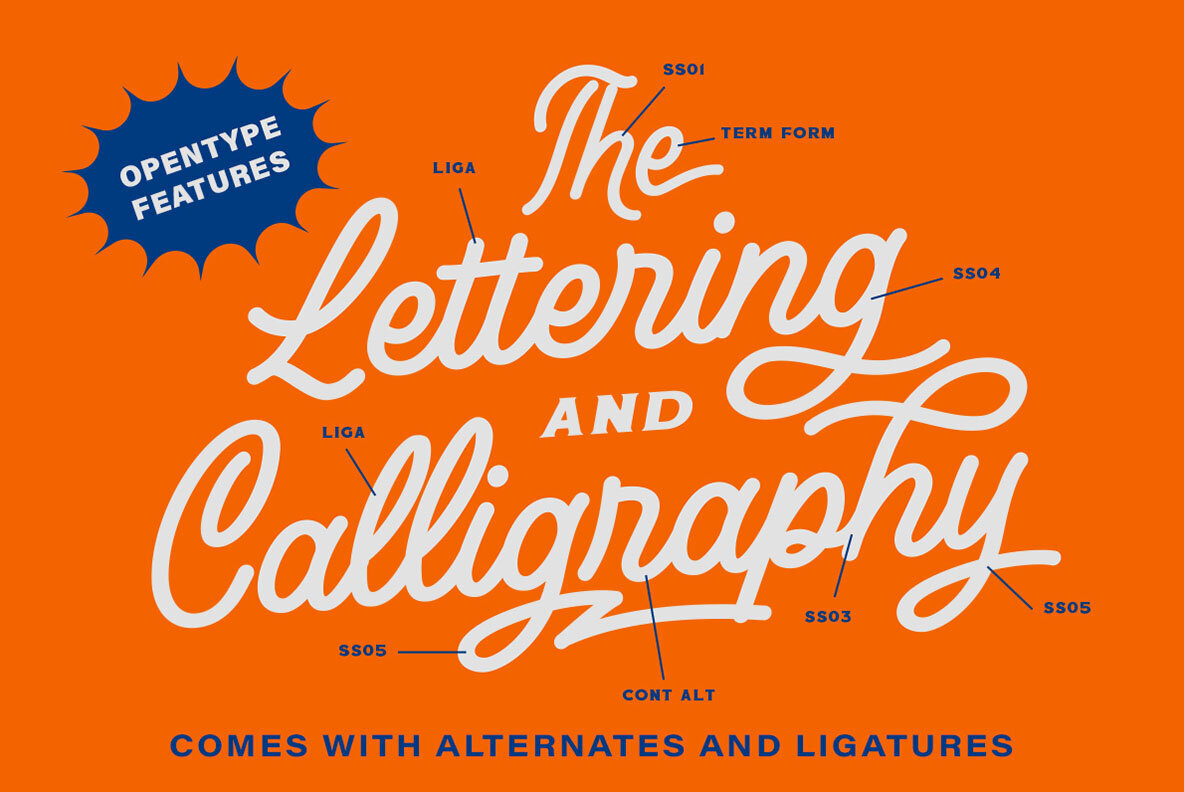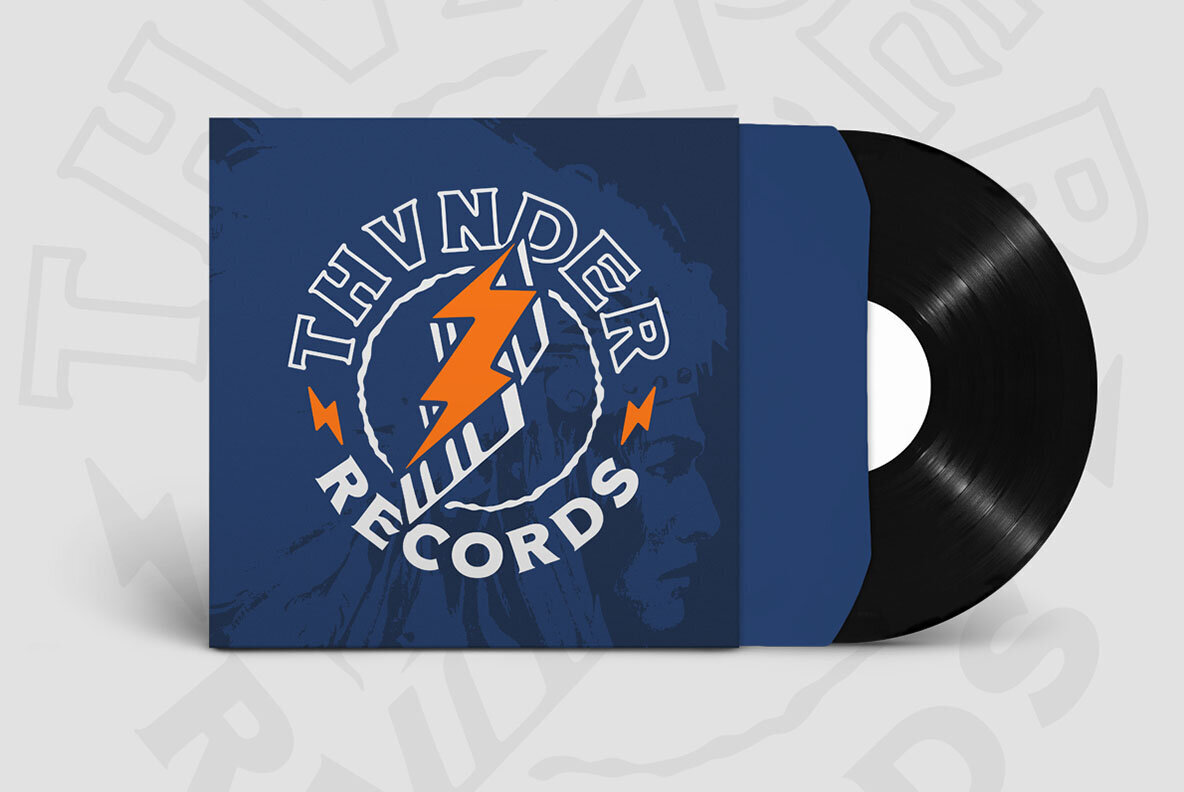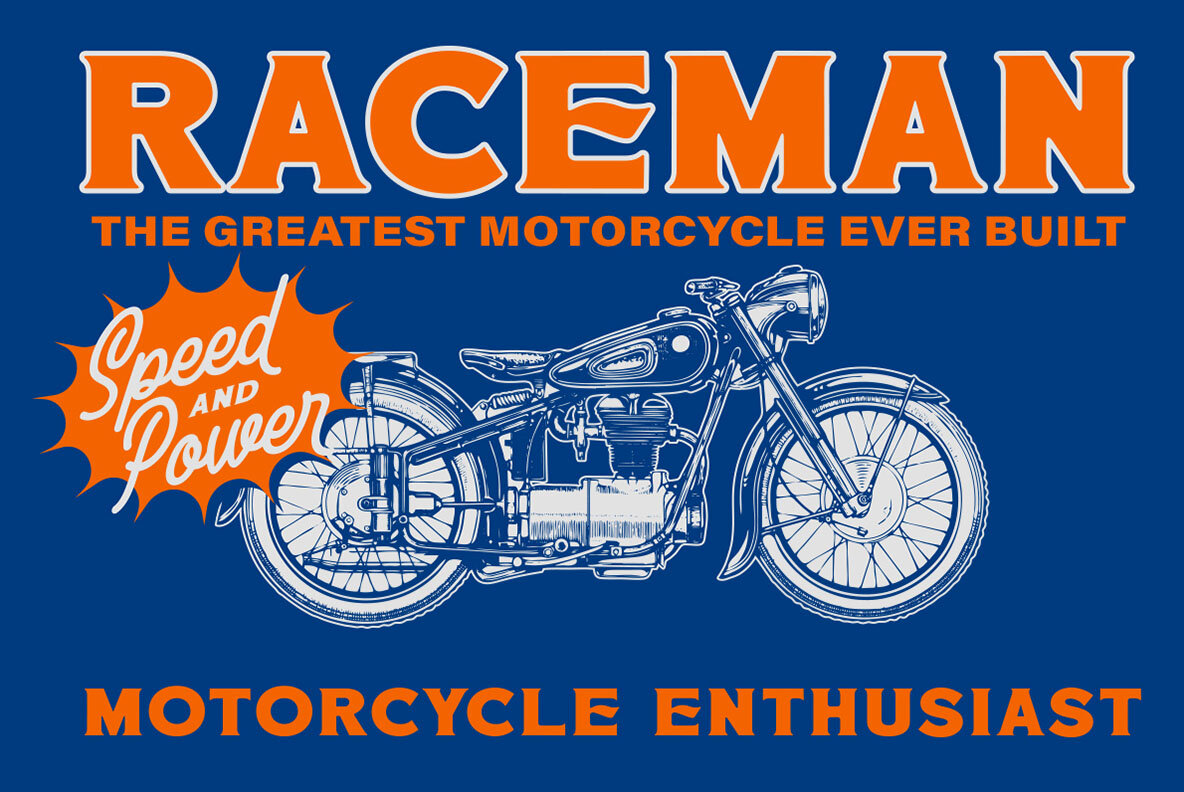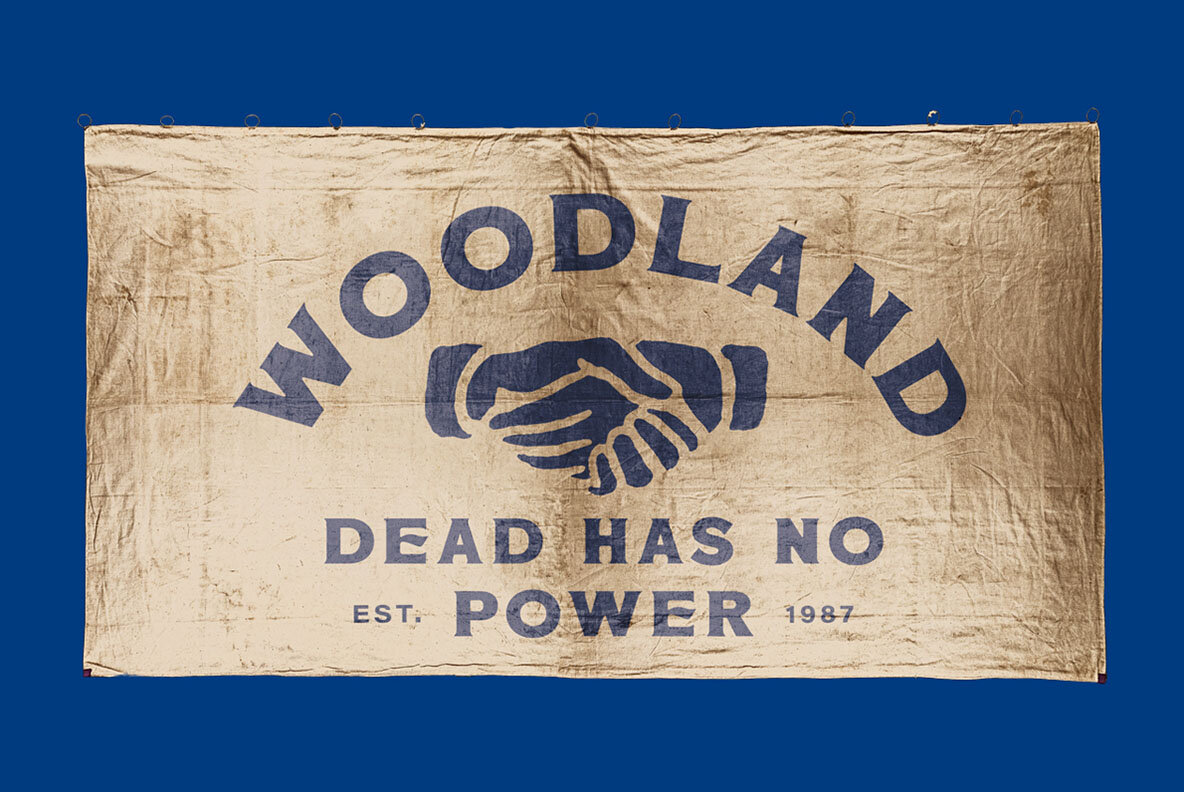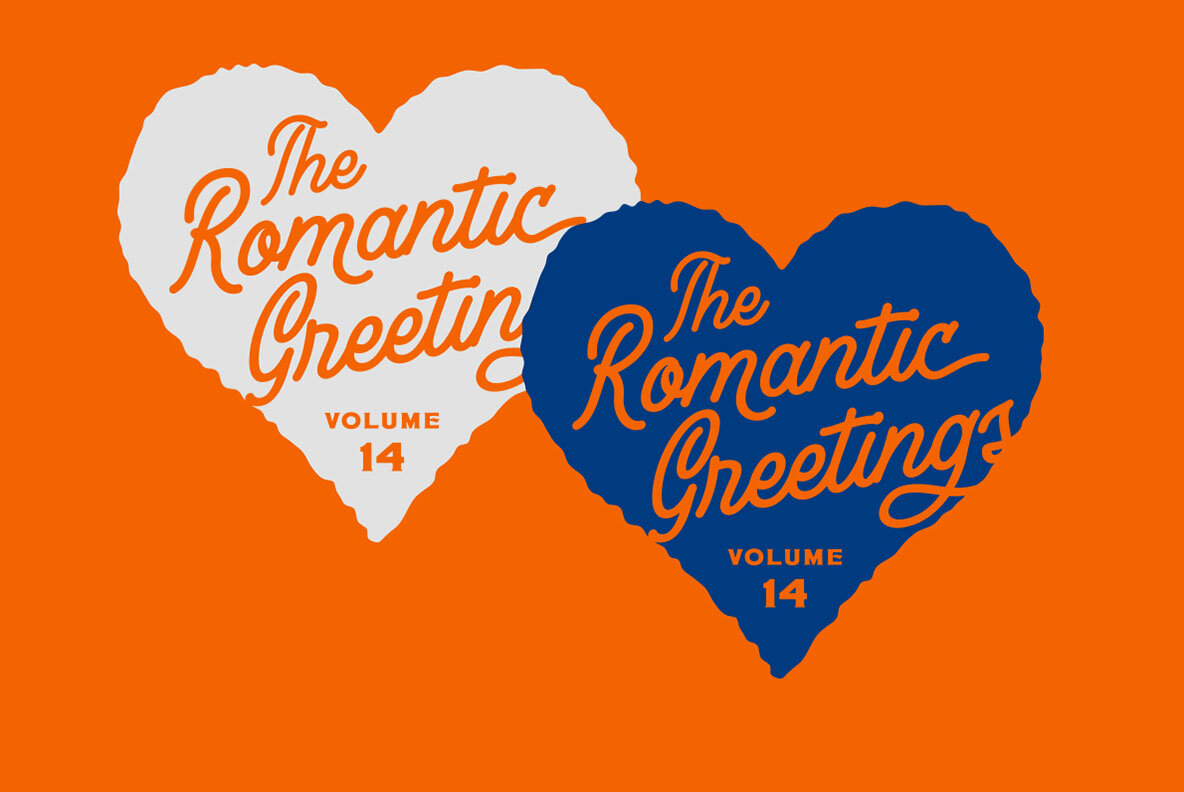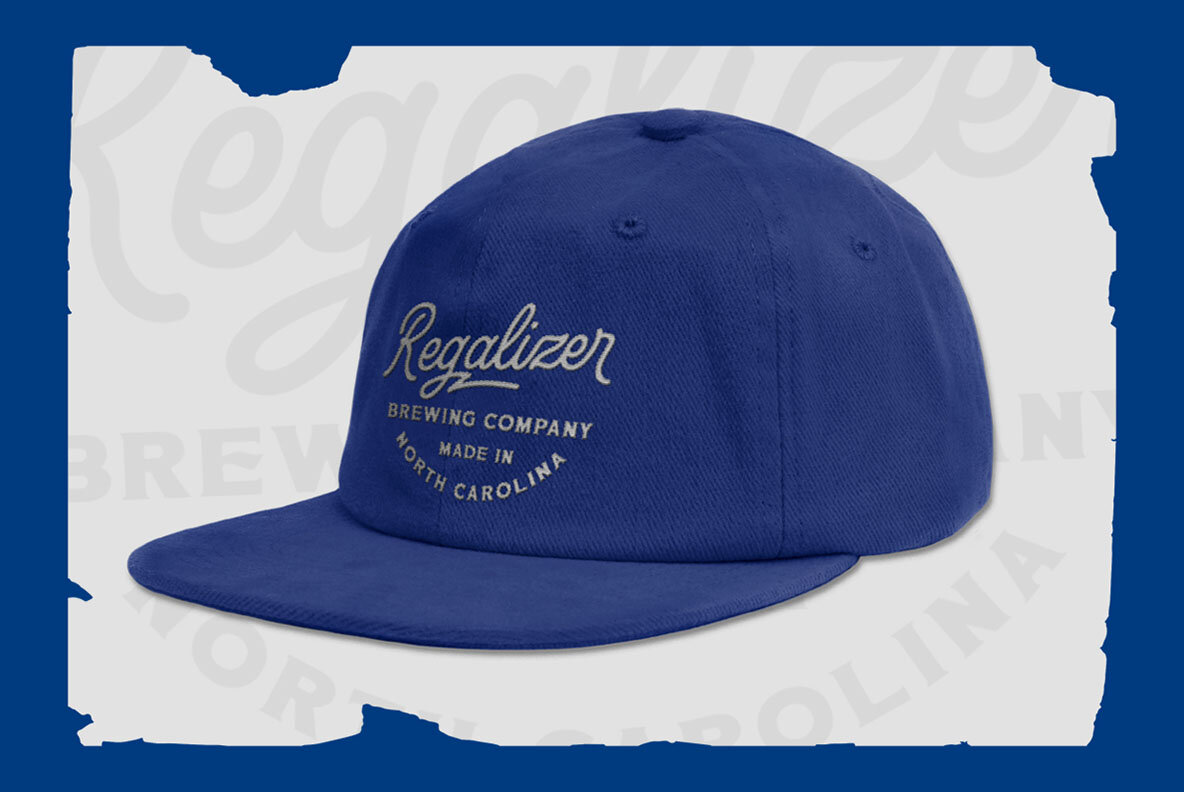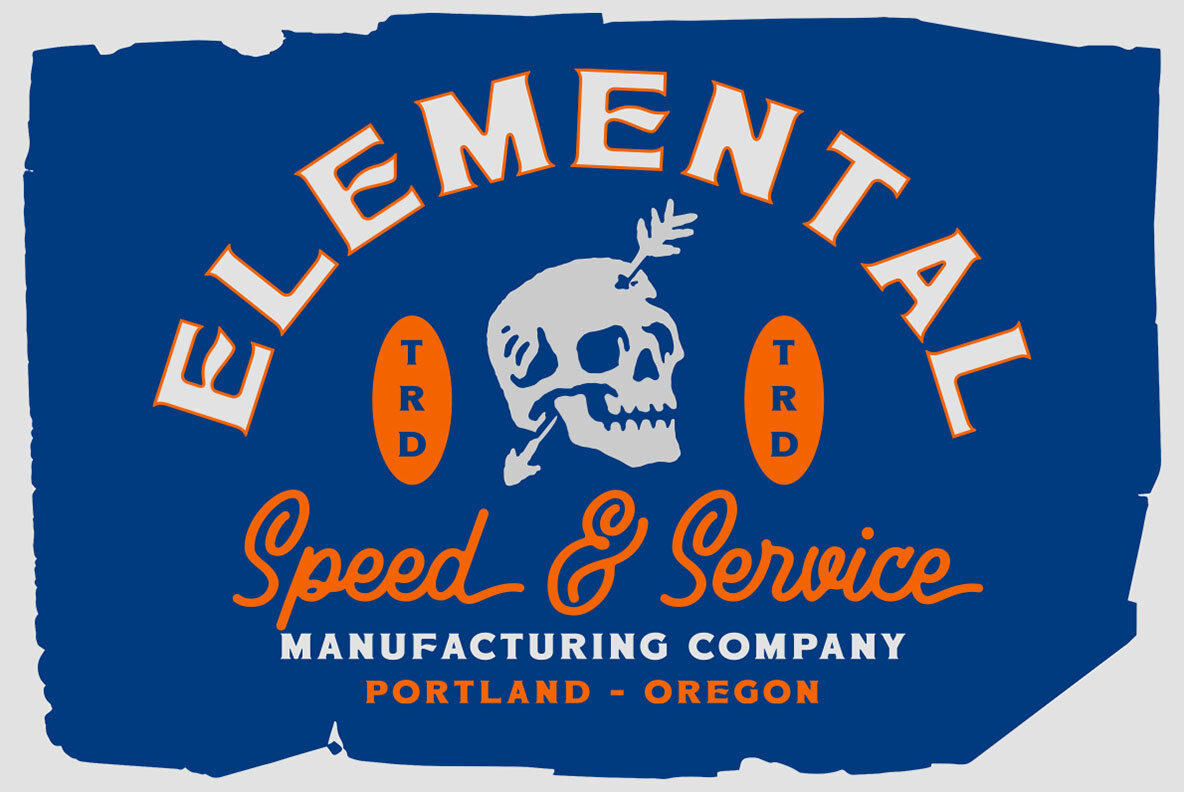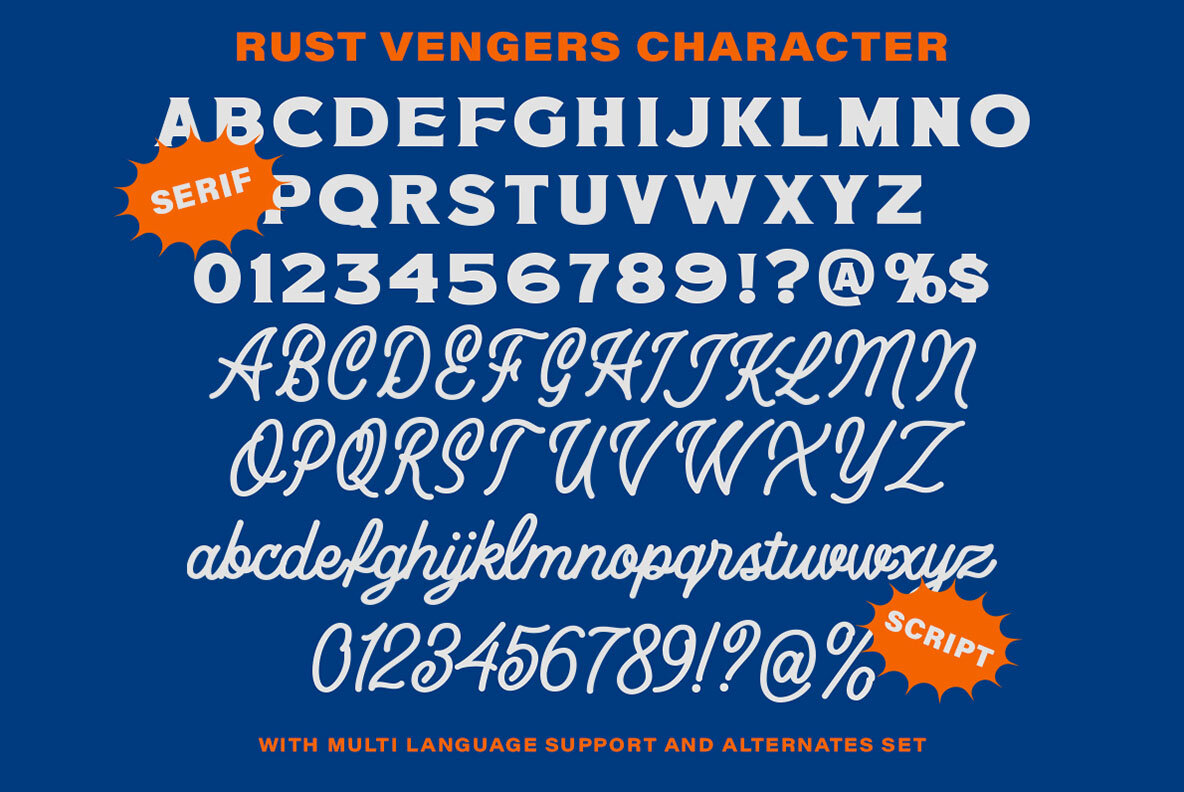
Rust Vengers Font
Rust Vengers is an display font duo consist of a monoline script paired with a display serif with a touch of sporty looks. This type of font perfectly made to be applied especially in logo, headline, signage and the other various formal forms such as invitations, labels, logos, magazines, books, greeting / wedding cards, packaging, fashion, make up, stationery, novels, labels or any type of advertising purpose. Features: We highly recommend using a program that supports OpenType features and Glyphs panels like many of Adobe apps and Corel Draw, so you can see and access all Glyph variations.